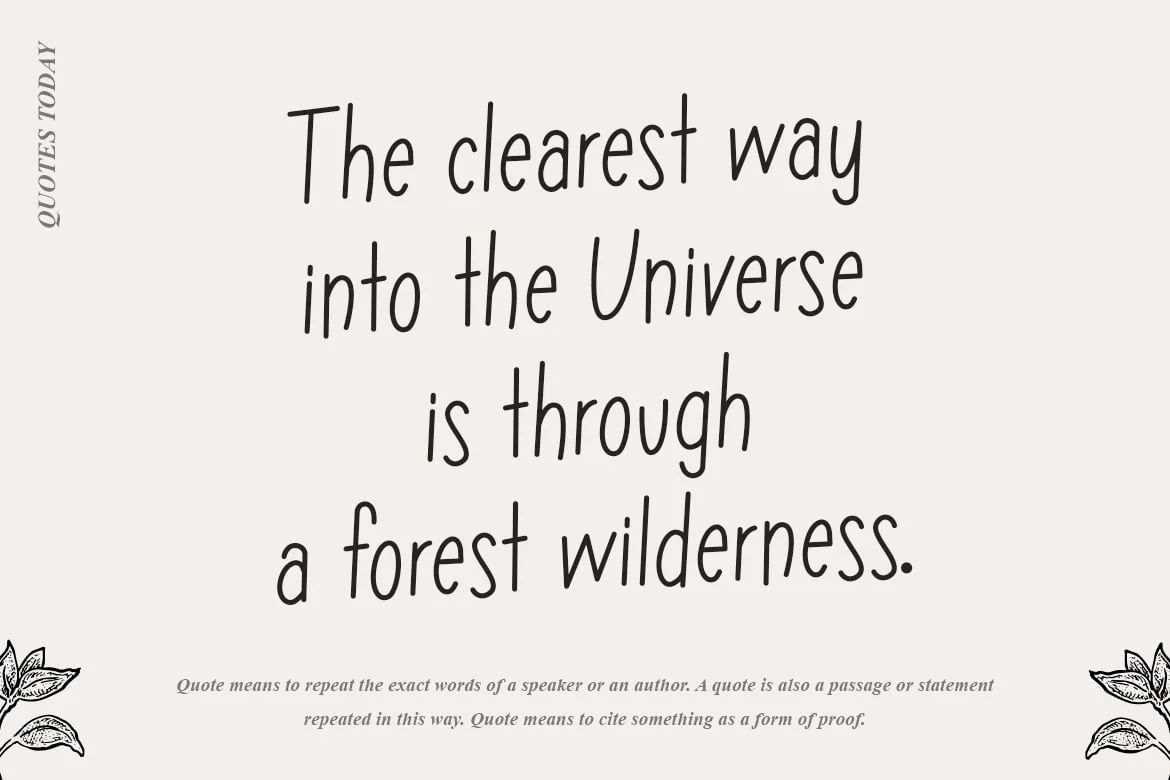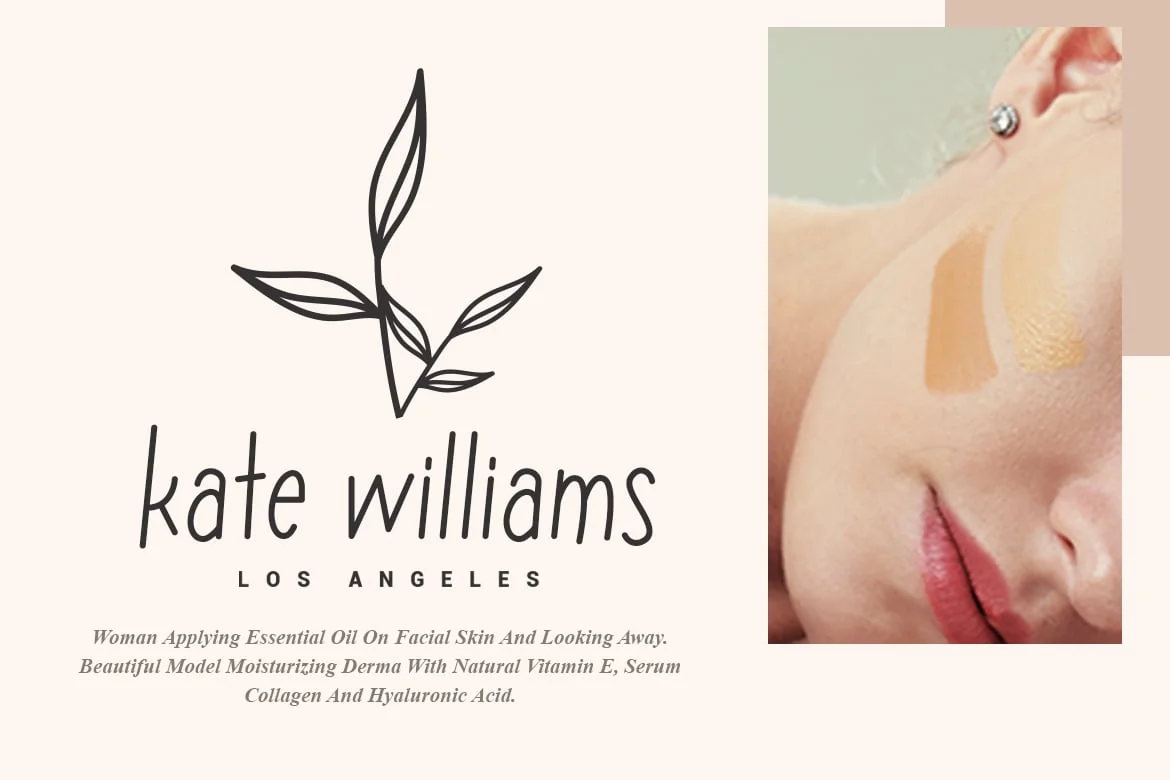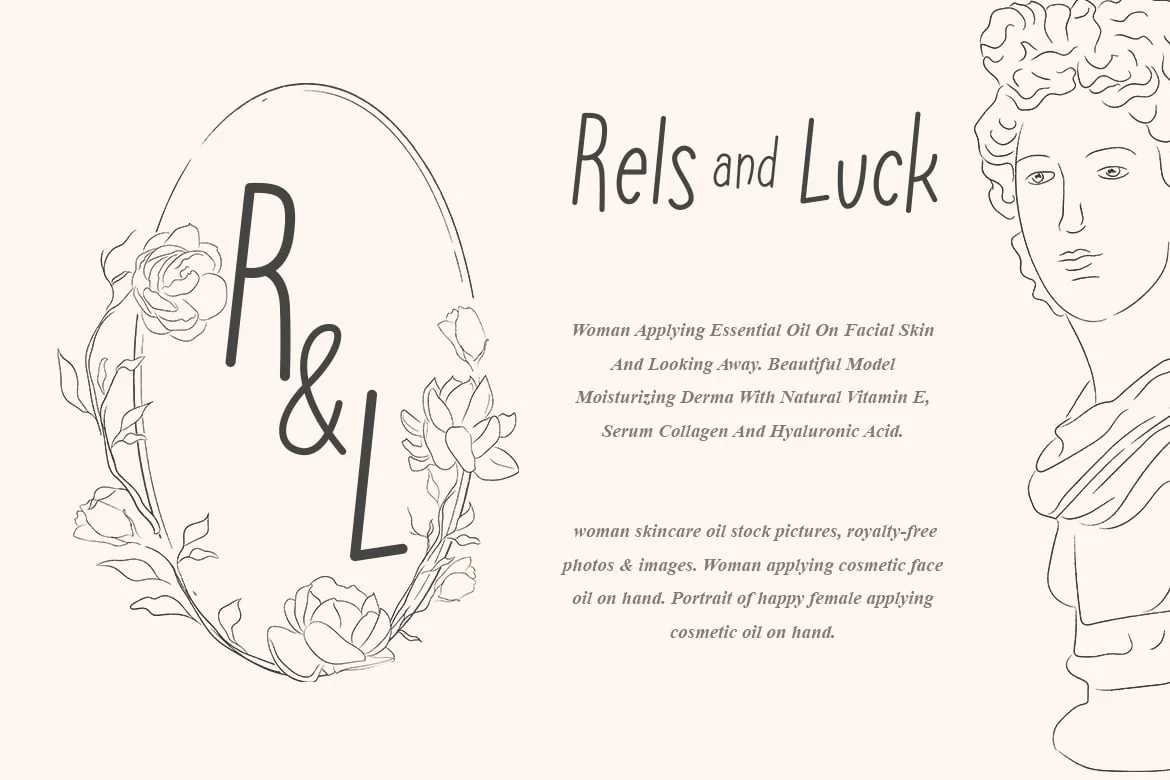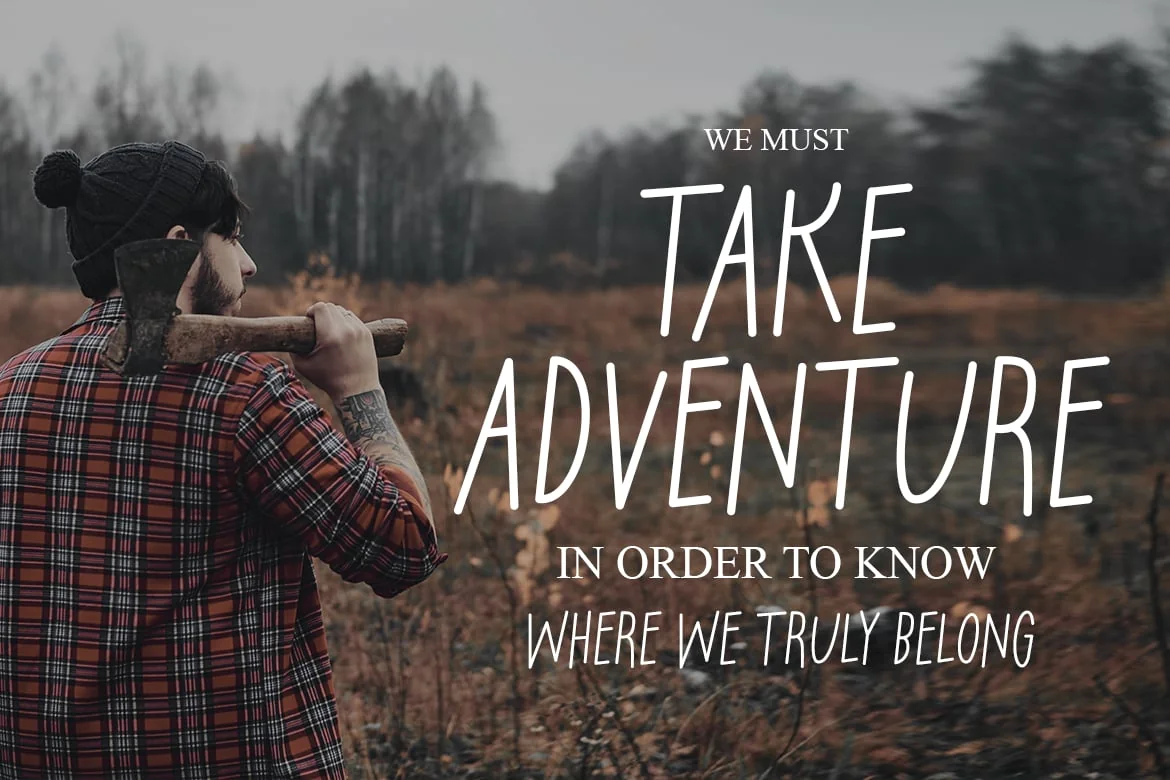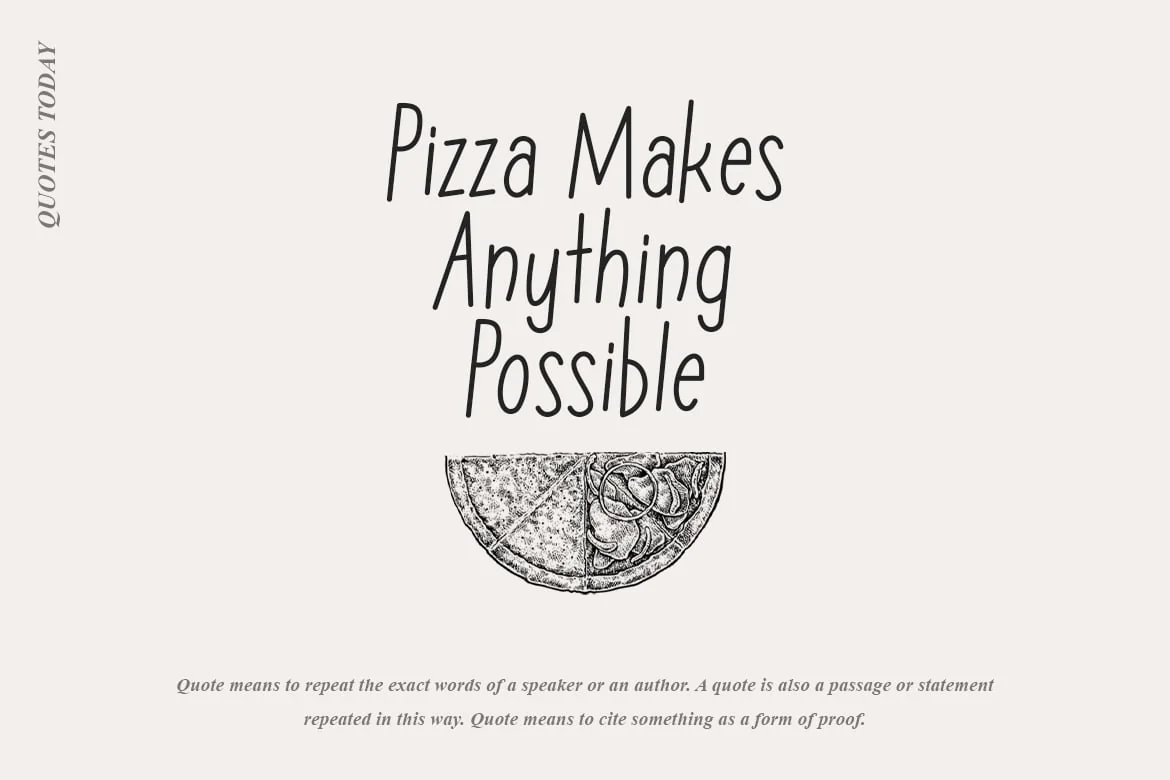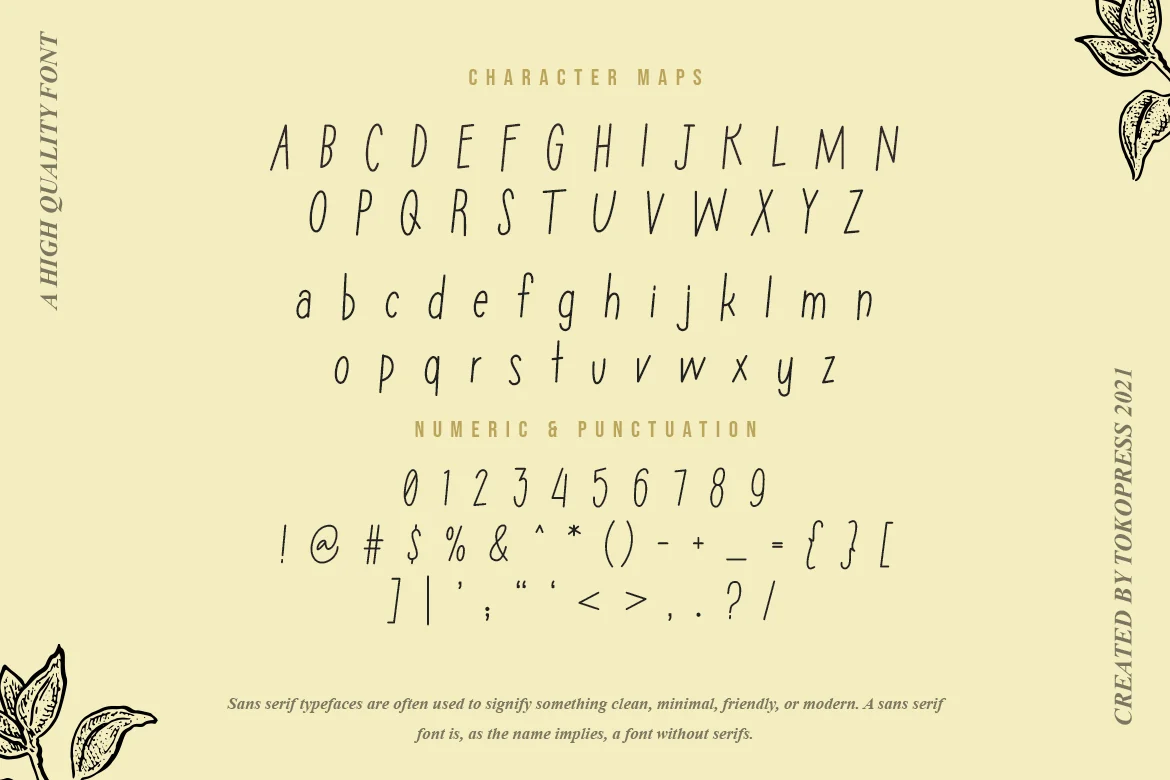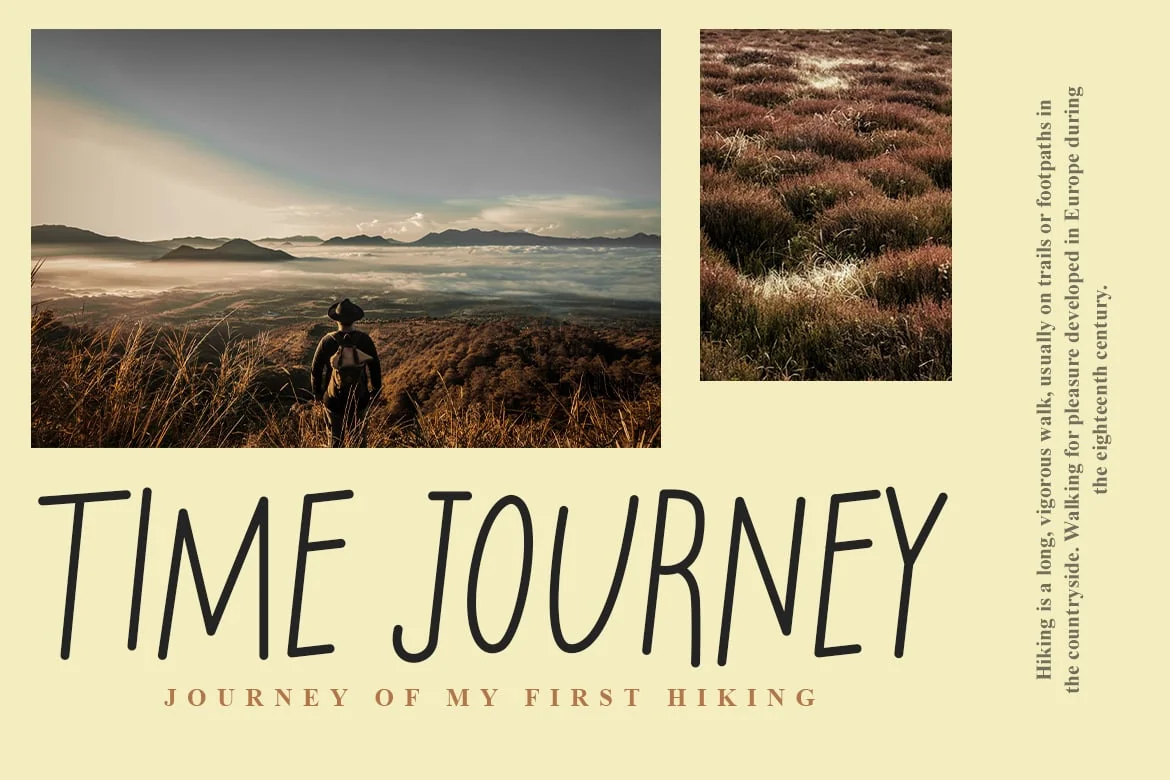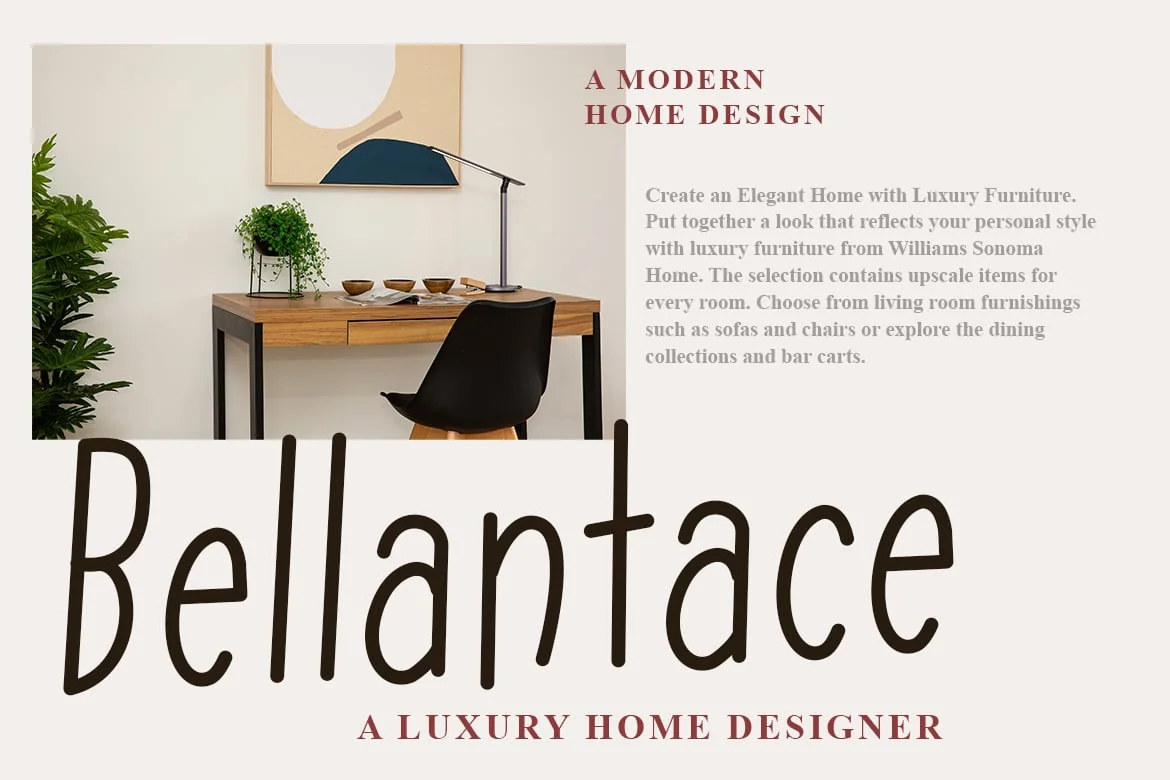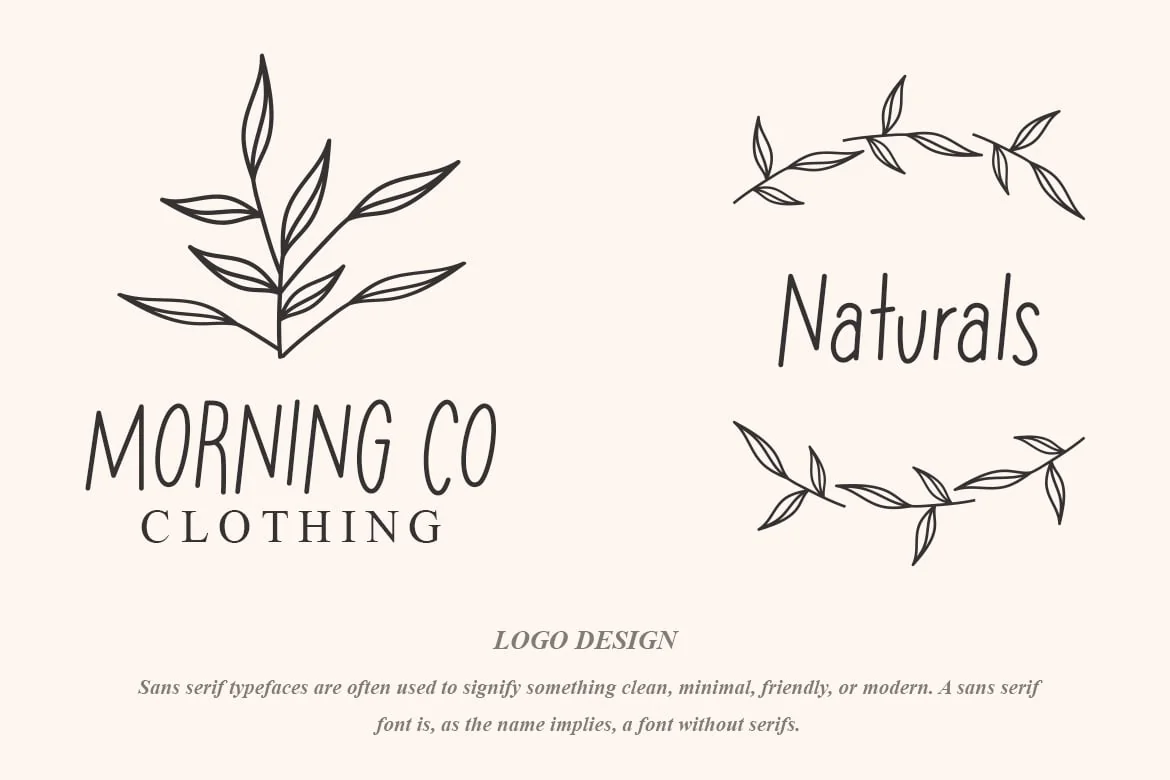
Peperoni – Handwritten Cute font
Peperoni- Cute Handwriting font
It bring elegance, beauty, and a calming ambience towards the audience.
Suit perfectly for female segmented magazine, poster, movie title, music poster, youtube covers, youtube thumbnails, social media page covers and so on…